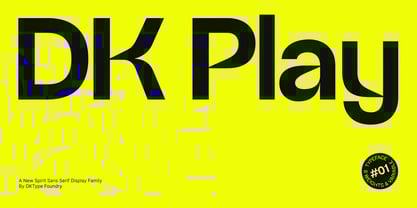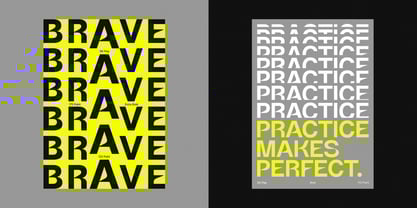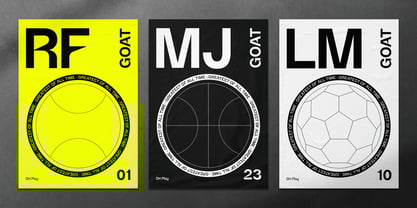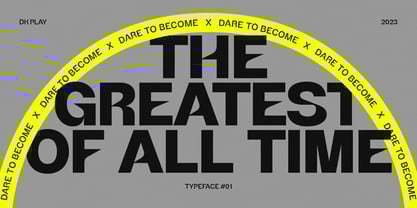
DK Play
by DKType Foundry
The DK Play Font Family was designed by Darman Kadir and published by DKType Foundry. DK Play contains 9 styles and family package options.
DK Play is a sans-serif typeface designed and developed by Darman Kadir, influenced by famous Swiss-style typefaces like Helvetica and others. This sans-serif typeface will become an alternative solution to enhance your sports and apparel presence. It has a solid and fast appearance, harder in certain font families, and stronger characteristics that will make your image more prominent.
Designers: Darman Kadir
Publisher: DKType Foundry
Foundry: DKType Foundry
Design Owner: DKType Foundry